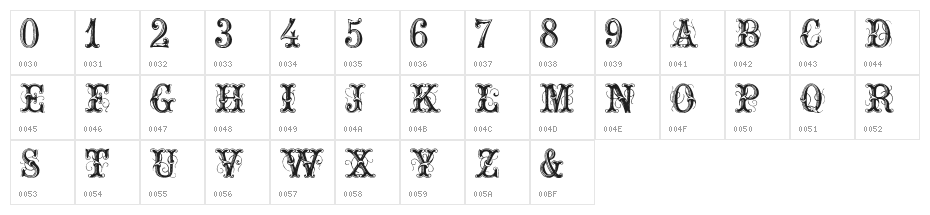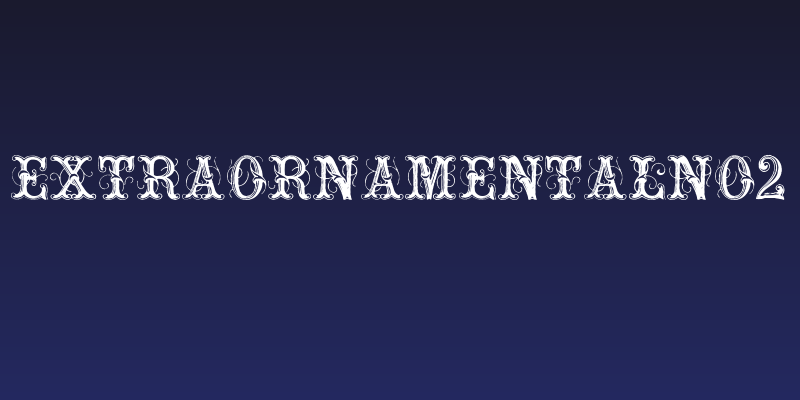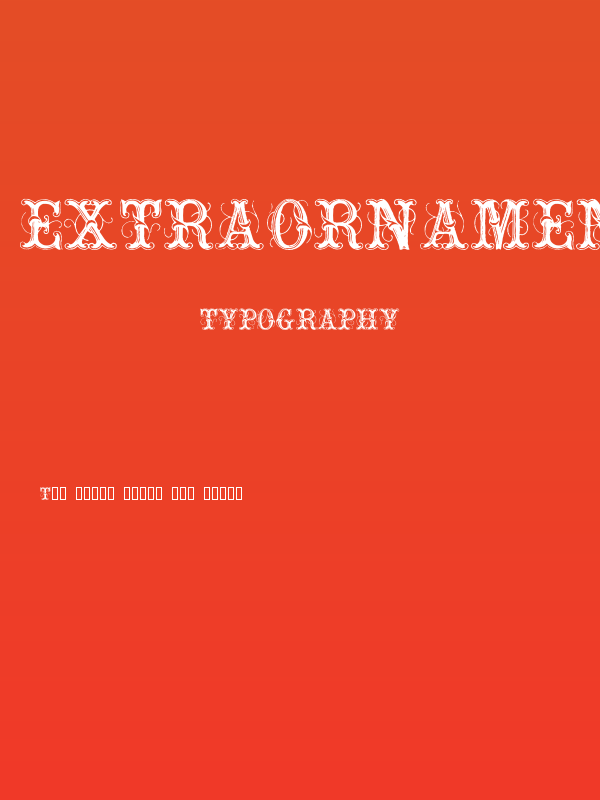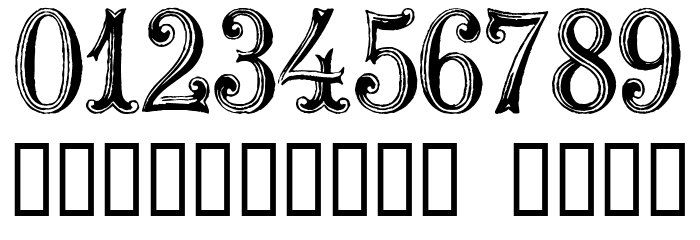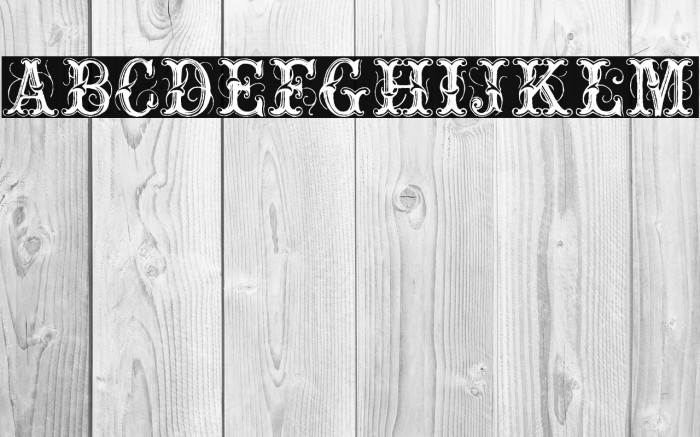
ExtraOrnamentalNo2 Font
ExtraOrnamentalNo2 Description
This font is a highly decorative and ornate typeface, featuring intricate flourishes and embellishments that give it a distinct vintage and artistic appearance. The uppercase letters are adorned with elaborate swirls and curls, making each character a piece of art. The numbers follow the same ornate style, ensuring consistency throughout the typeface. The font's detailed design makes it suitable for projects that require a touch of elegance and sophistication. Its unique style is reminiscent of Victorian-era typography, perfect for creating a dramatic and eye-catching effect.
| Proposed Projects | Ideal for wedding invitations, luxury branding, vintage posters, and decorative book covers. |